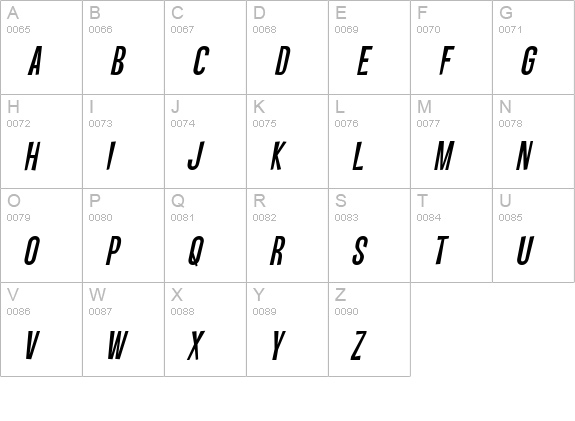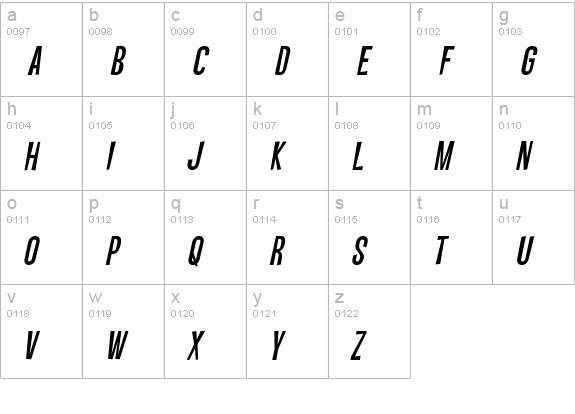
Vanishing Boy BTN Oblique is a distinctive, italic variant in the Vanishing typeface family \xE2\x80\x94 well suited to design and typography projects.
Vanishing Boy BTN Oblique font is a stunning display font that exudes a sense of mystery and intrigue. With its unique slanted design, this font is perfect for adding a touch of excitement and drama to any creative project. The Vanishing Boy BTN Oblique font features sharp, elongated letterforms that appear to vanish into the horizon, creating a visually captivating effect. Its oblique style adds a dynamic and modern twist to traditional typography, making it an excellent choice for contemporary designs. Whether you're working on a poster, a book cover, or a branding project, Vanishing Boy BTN Oblique font will effortlessly elevate your work to new heights. Its versatility allows it to be used across various applications, from headlines and titles to body text, ensuring a cohesive and visually appealing design. One of the best things about Vanishing Boy BTN Oblique font is that it is freely available to download at FontsMarket.com. This means that you can easily access and use this remarkable font without any restrictions. Whether you're a professional designer or a hobbyist, having access to high-quality fonts like Vanishing Boy BTN Oblique font can greatly enhance your creative endeavors. So why wait? Download Vanishing Boy BTN Oblique font today and unleash your creativity. With its captivating design and the freedom to use it in your projects, this font is sure to make a lasting impression. Don't miss out on this incredible opportunity to enhance your designs with a truly unique and visually striking font.